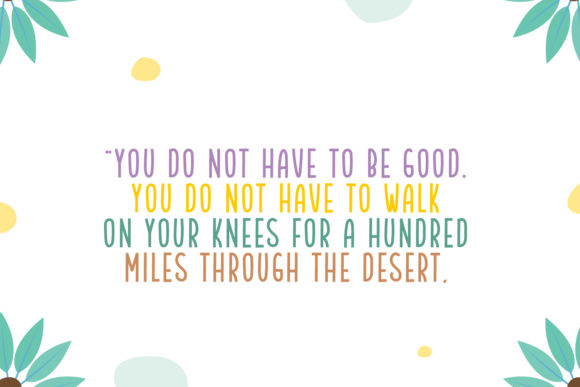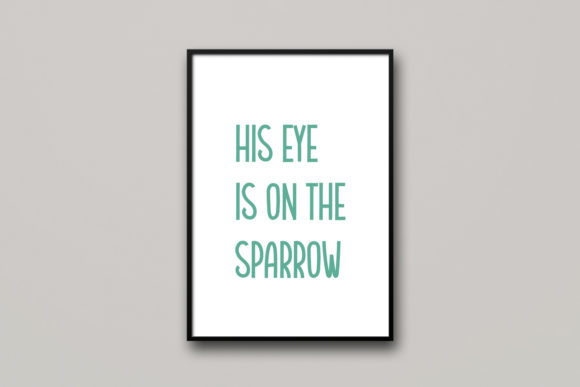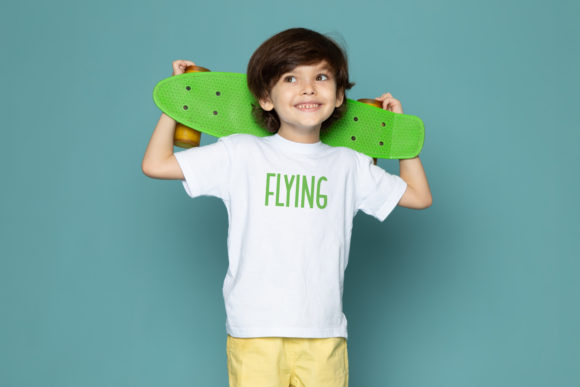
Hello Bird Font: A Playful Sans Serif for Cute Designs & Crafts
About the Hello Bird Font
The Hello Bird Font offers a perfect balance of form and function for your design needs. Hello Bird is an all-caps, fun, and quirky Sans Serif Font that will look great in any design. Its casual charm makes it look very down to earth, easy to read, and, in the end, very versatile. Add this beautiful display font to your every creative idea.
This font is perfect for quotes, shirt designs, websites, branding, children’s designs, blogs, logos, invitations, and more!
Hello Bird’s playful energy makes it ideal for headlines, short text blocks, and branding projects requiring a friendly, approachable feel. It excels in applications like posters, logos, and packaging for children’s products or brands with a similarly lighthearted aesthetic. However, its all-caps nature and relatively loose letterforms make it less suitable for body text or UI elements requiring high readability at smaller sizes.
Consider pairing Hello Bird with a clean sans-serif like Open Sans for body copy or a more elegant serif like Lora for a balanced contrast. For a bolder, more playful effect, a geometric sans-serif like Montserrat could also work well. Avoid pairing it with overly ornate or highly stylized fonts that might clash with its casual charm.
The font projects a friendly, approachable personality, best suited for brands targeting a younger demographic or those emphasizing fun and approachability. Its quirky character makes it a strong choice for projects needing a unique and memorable visual identity.
Hello Bird Font Usage Examples
Hello Bird Font Example